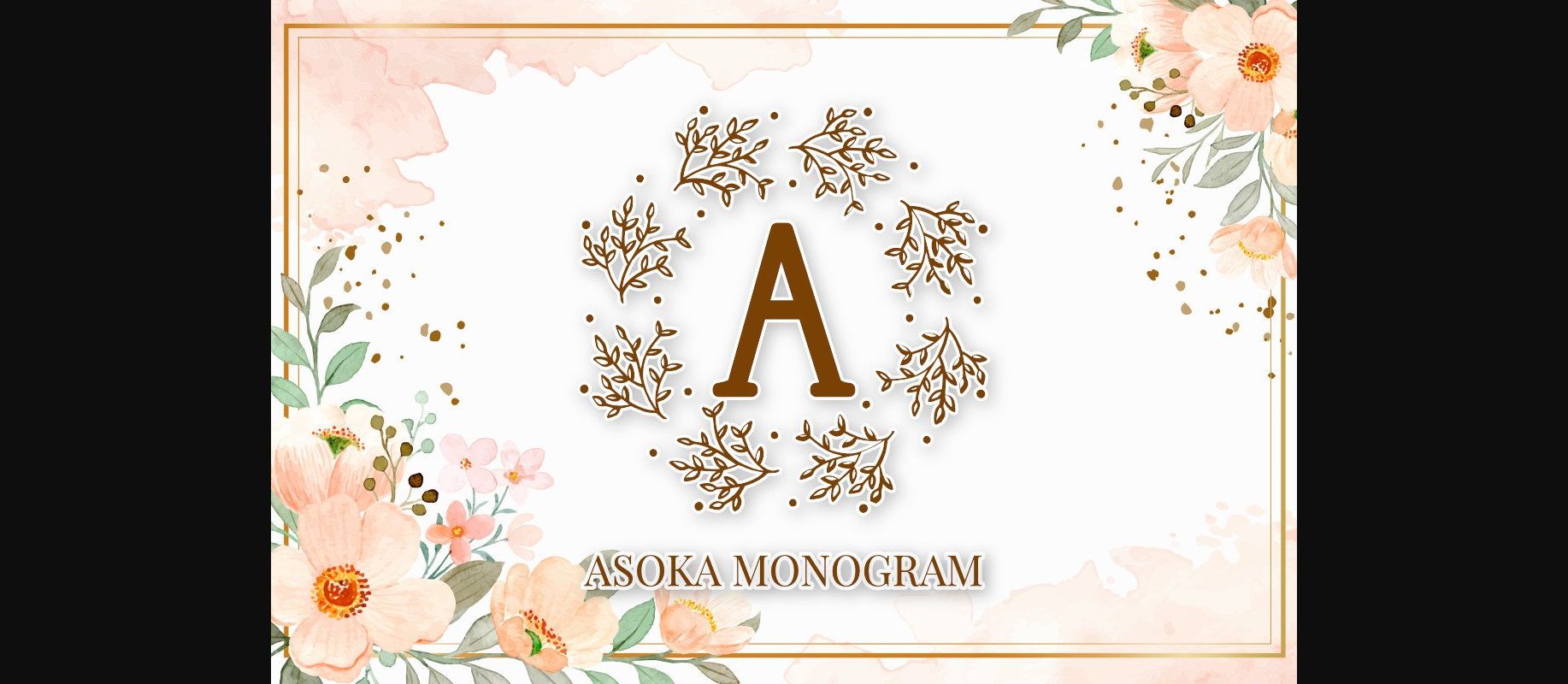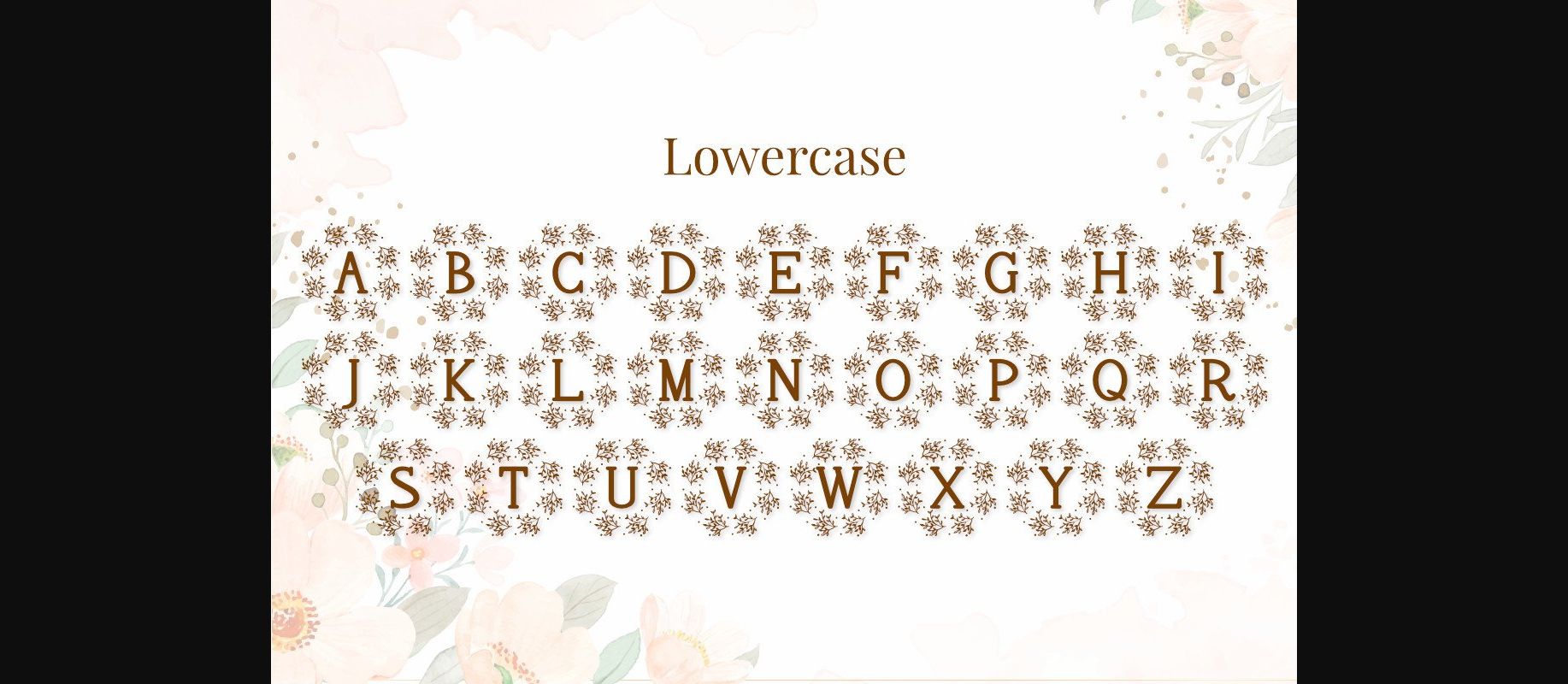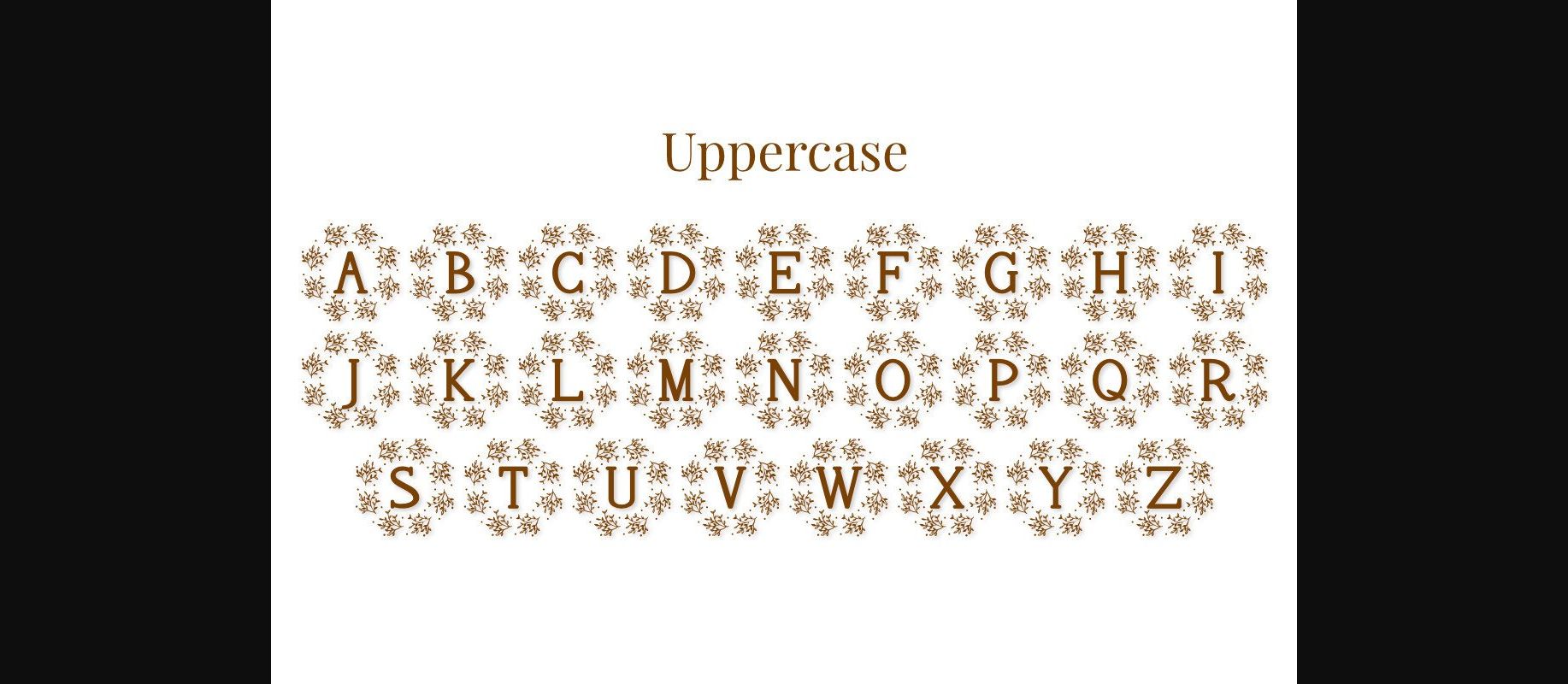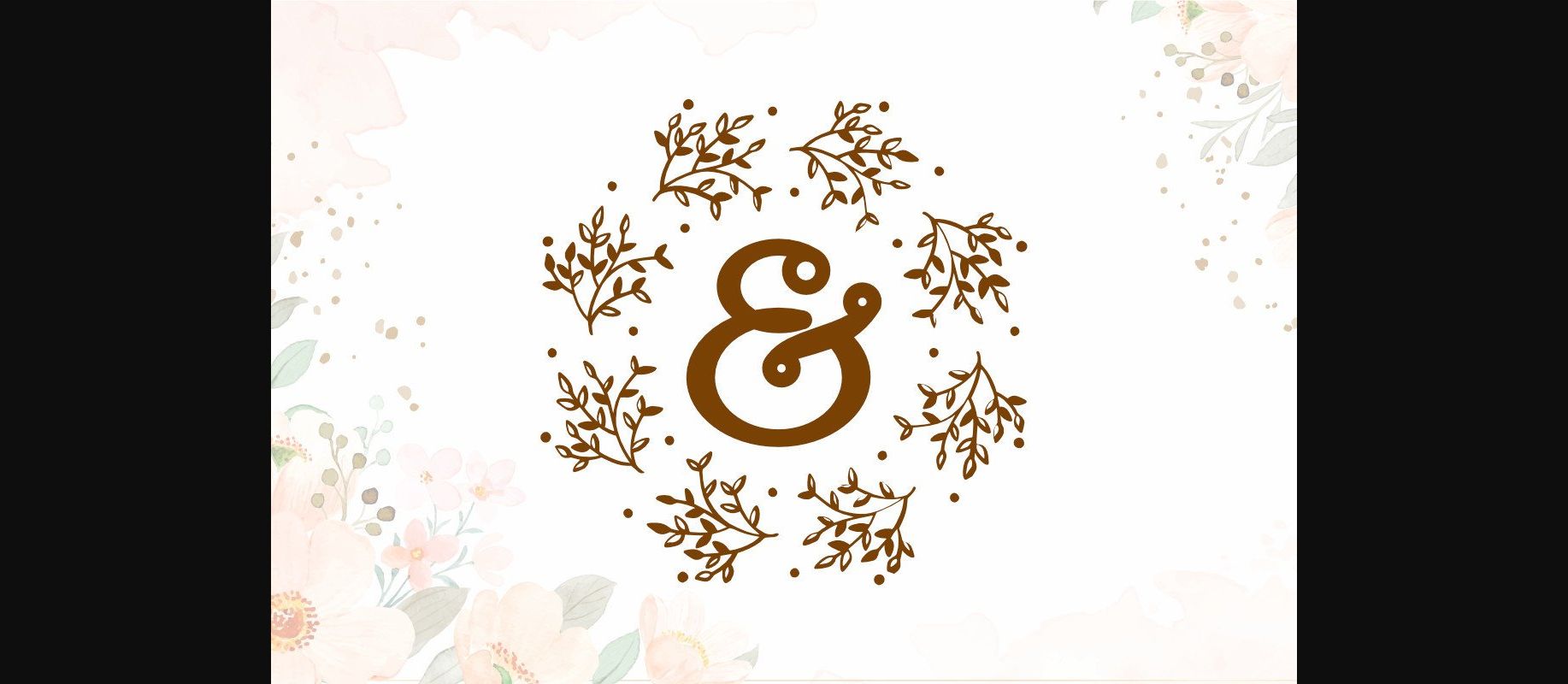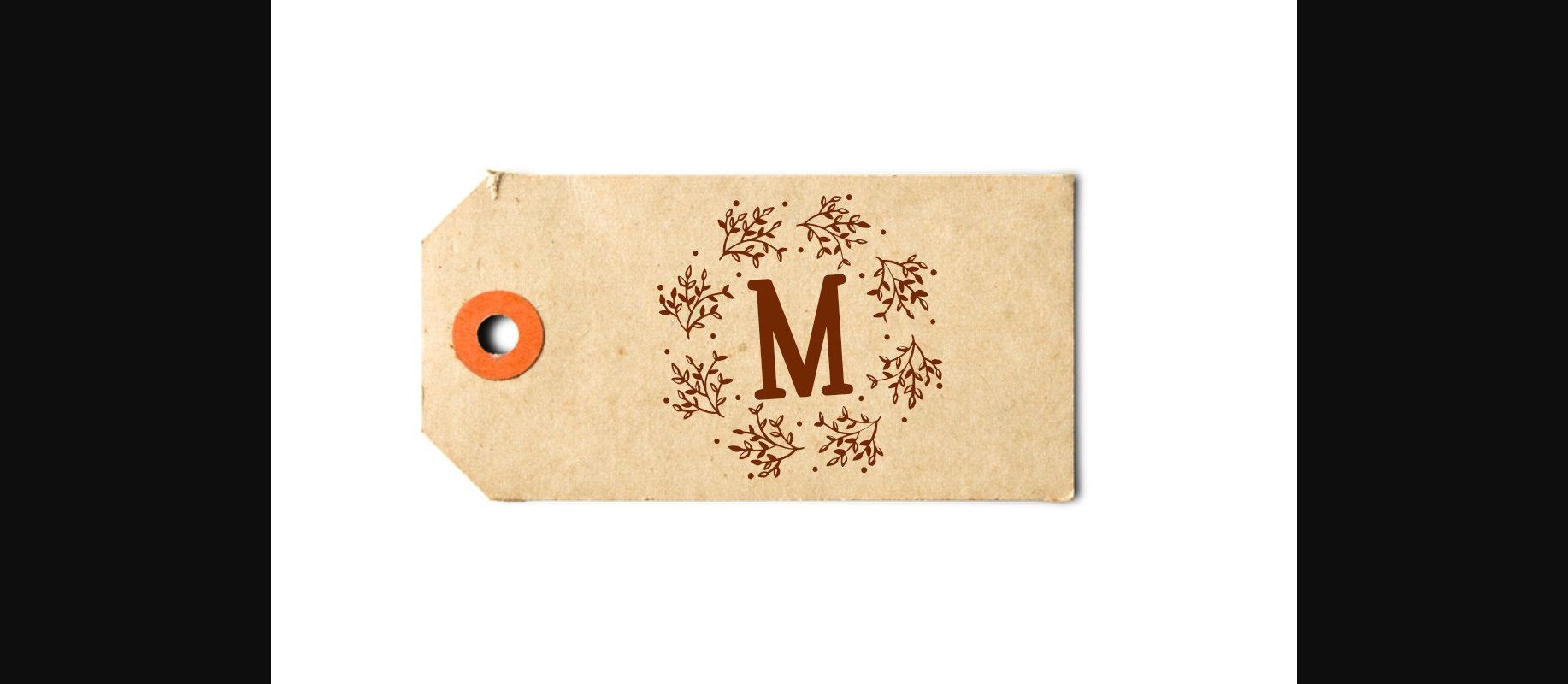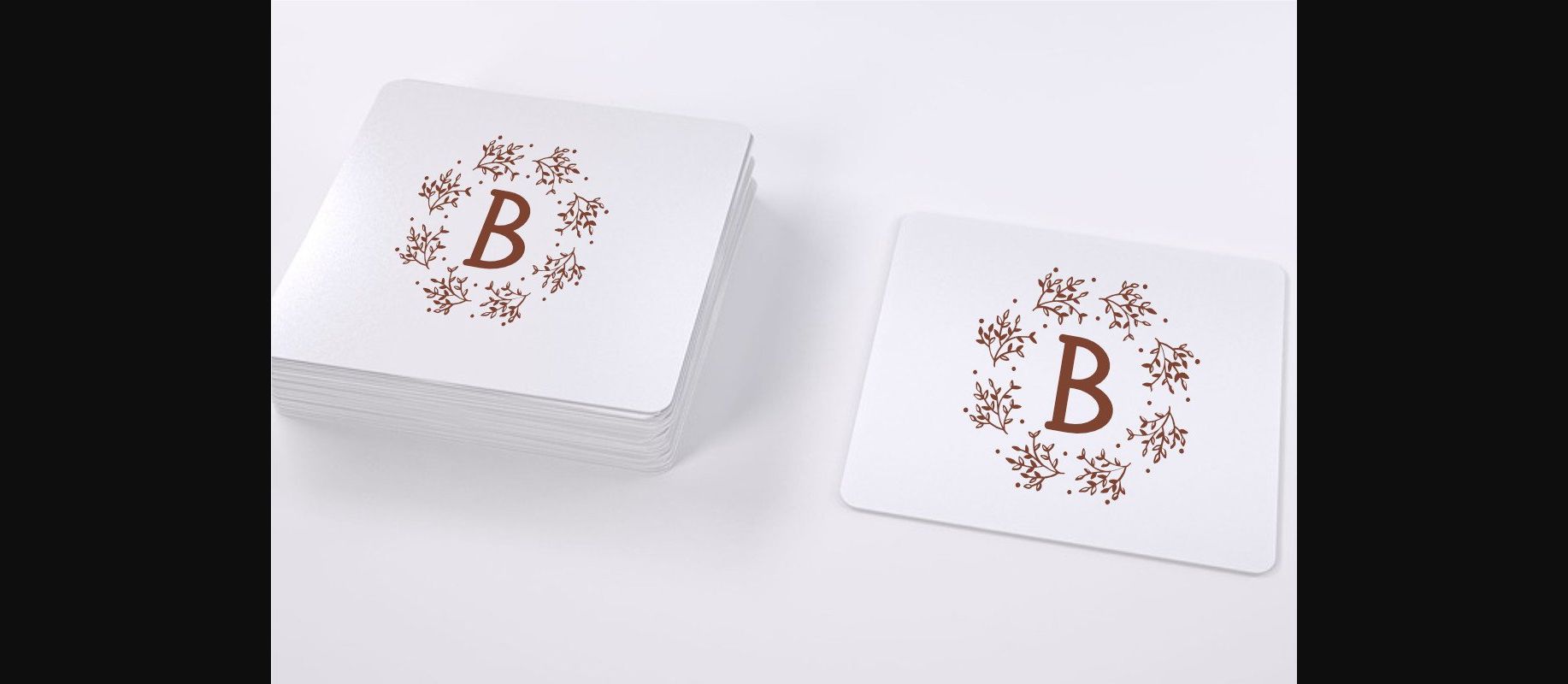
Asoka Font
About Asoka Font
Asoka is a lovely decorative font, featuring beautiful flower monograms. Get inspired by its authentic feel and use it to create gorgeous wedding invitations, eye-catching social media posts and cute greeting cards!